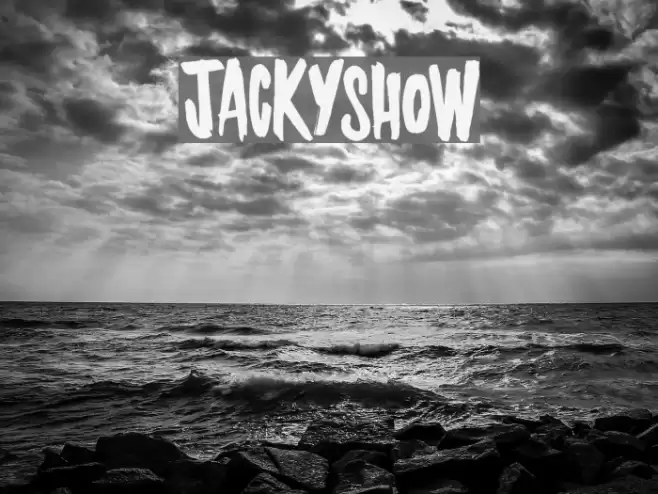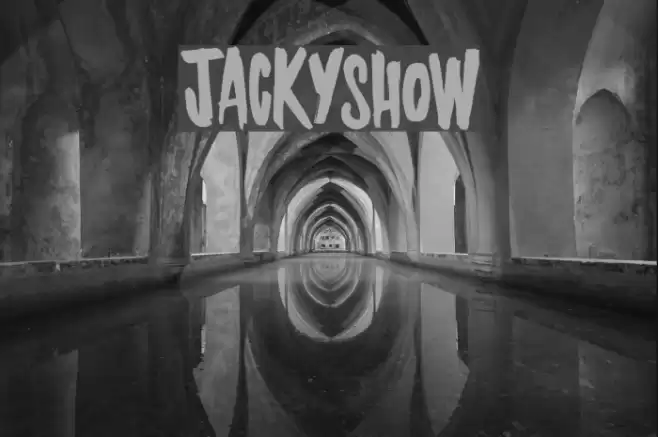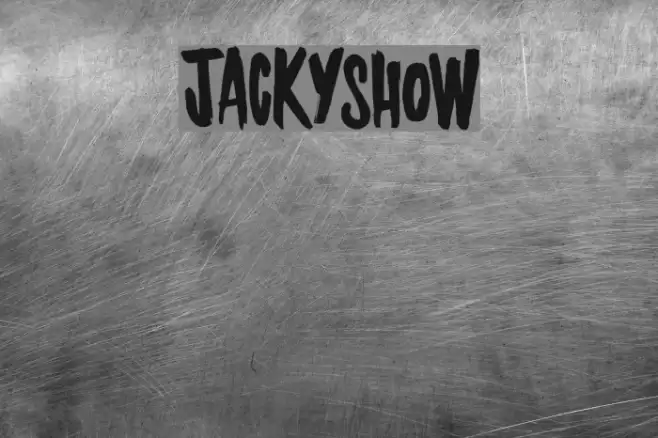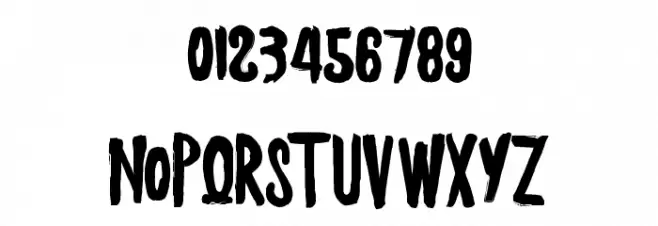
JACKYSHOW Font
JACKYSHOW Description
This font features a bold and expressive style with a hand-painted appearance. The letters are uneven and slightly irregular, giving it a dynamic and energetic feel. The strokes are thick and vary in width, adding to the handcrafted look. The uppercase and lowercase letters maintain a consistent style, while the numbers and special characters complement the overall design. This font is perfect for projects that require a bold, artistic touch.
A bold, hand-painted style font with dynamic, uneven strokes from Uncategorized fonts.
- Proposed Projects: Ideal for posters, album covers, branding, and any creative projects that need a bold, artistic flair.